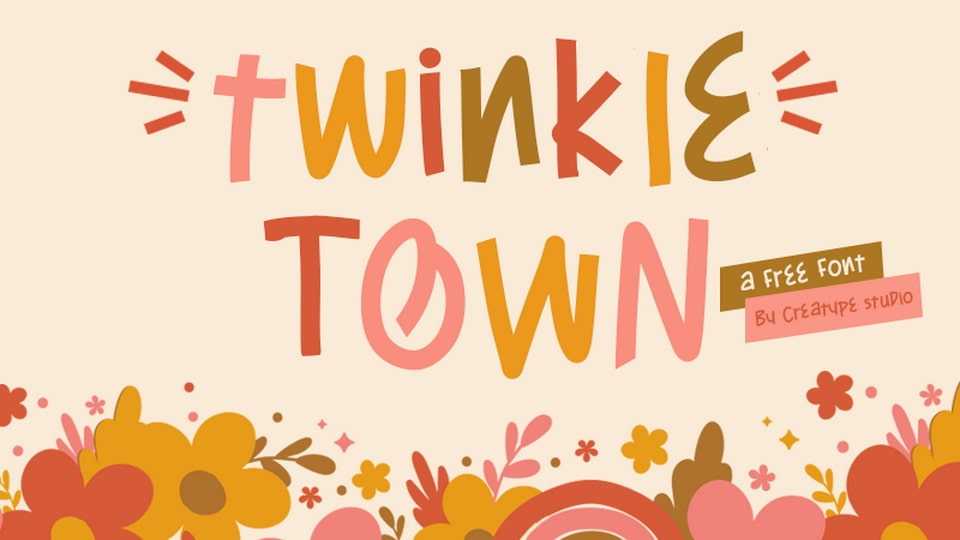
Download Twinkle Town font, a delightful hand-crafted typeface bursting with playful, quirky energy and featuring bouncy curves and lively strokes that radiate joy and charm.